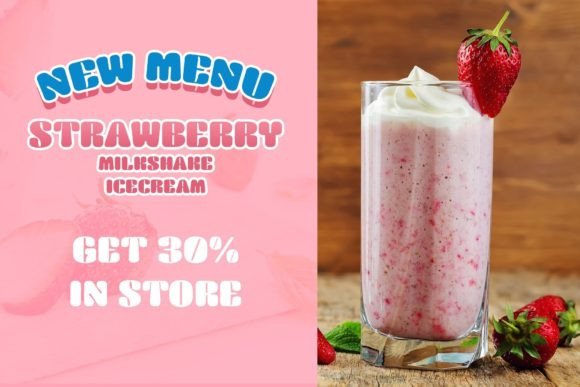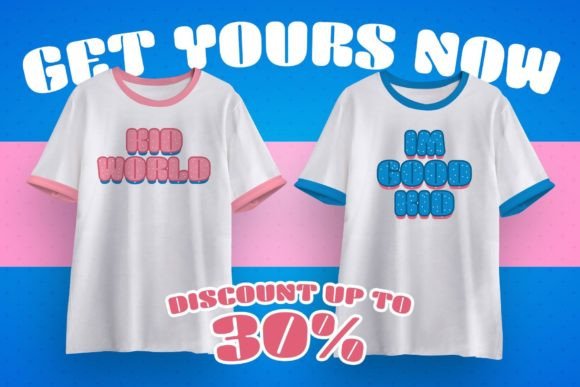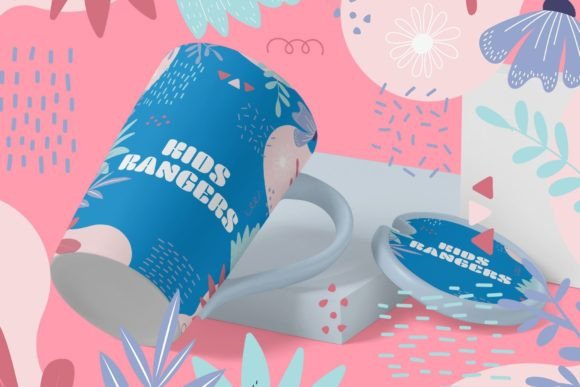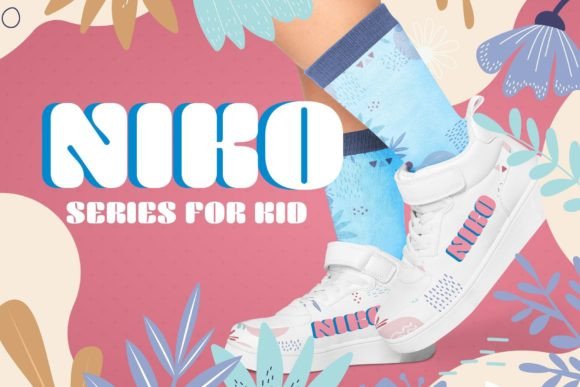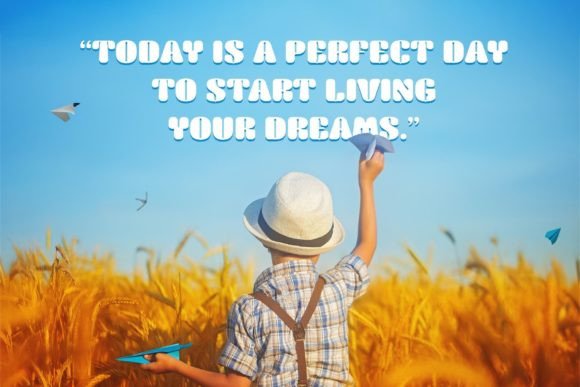
Cashy Font – Free Download
Introduction to Cashy Font
Cashy is a playful display typeface.
Great for creating eye-catching headlines and applicable for any type of graphic design web, print, motion graphics, perfect for t-shirts and other items like logos, posters/ flyers, branding, packaging, etc .
Key Features of Cashy Font
Why Choose Cashy Font?